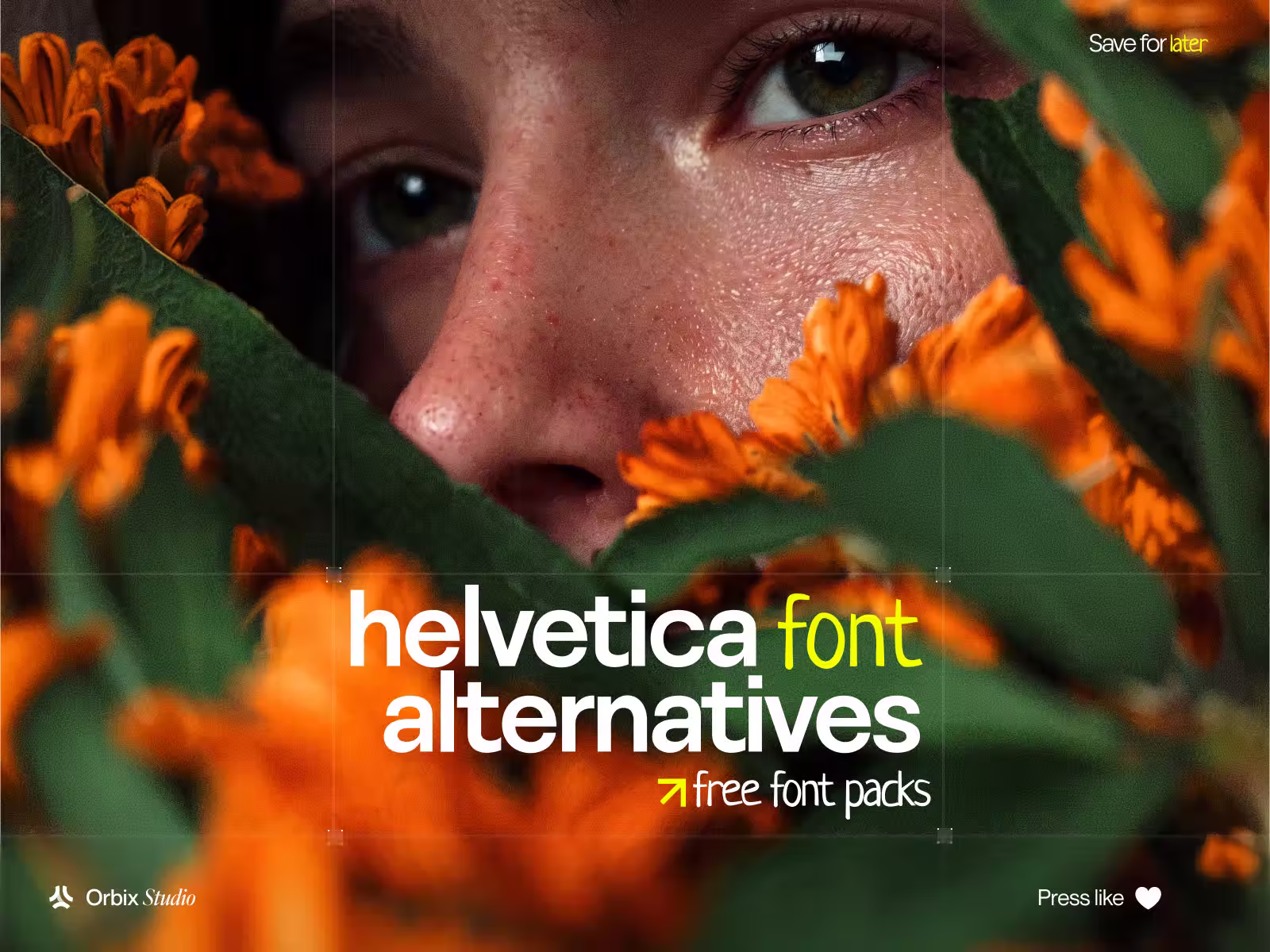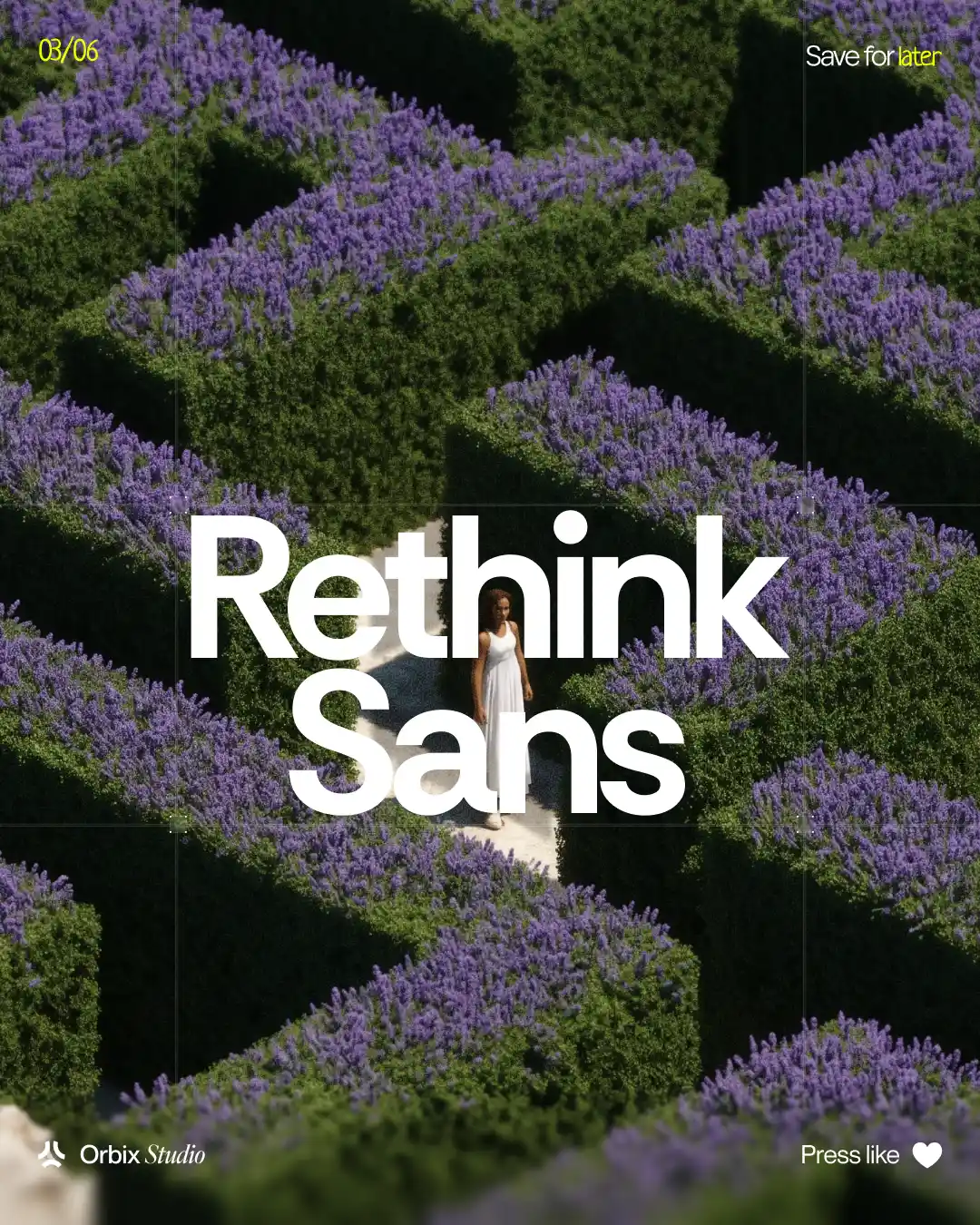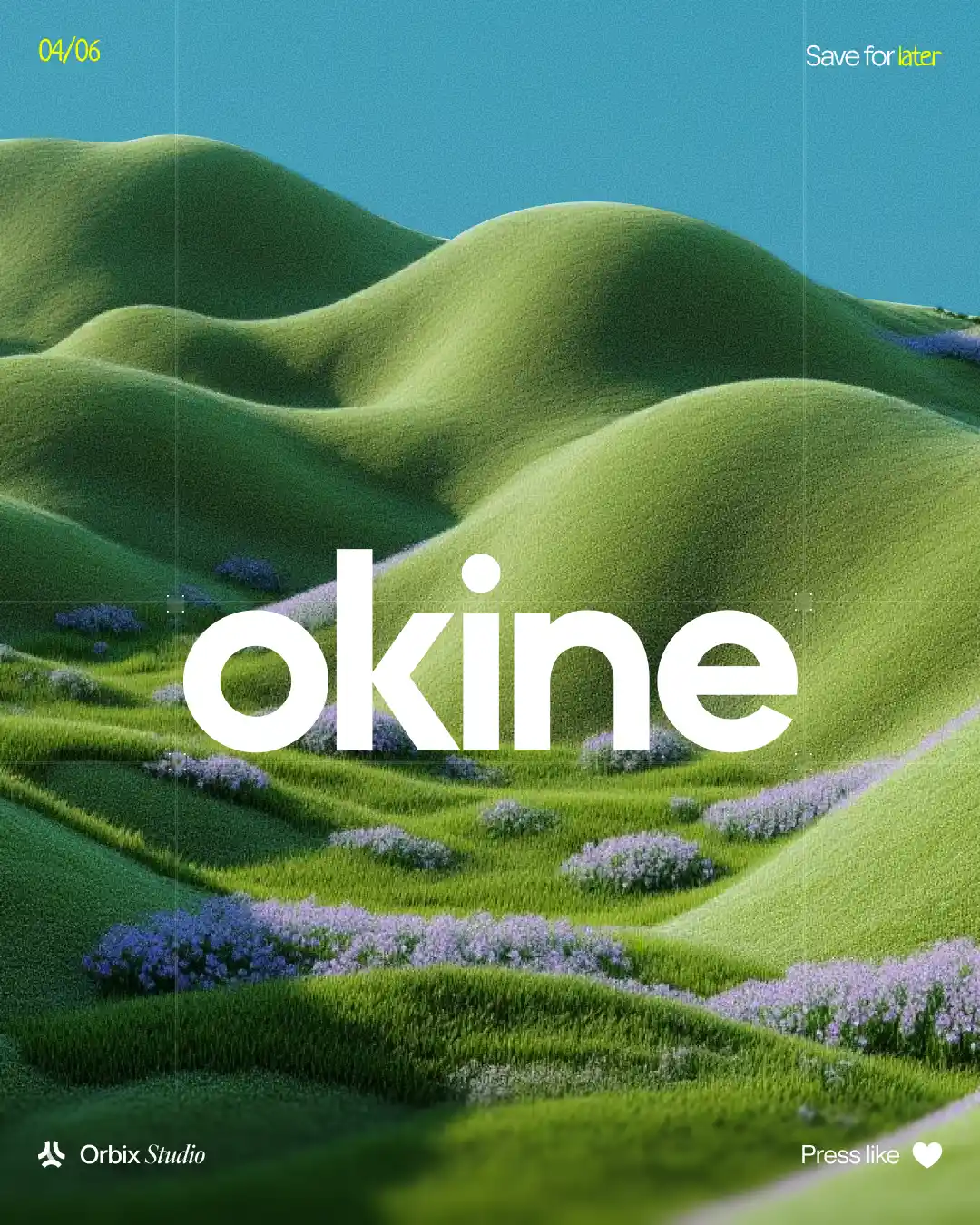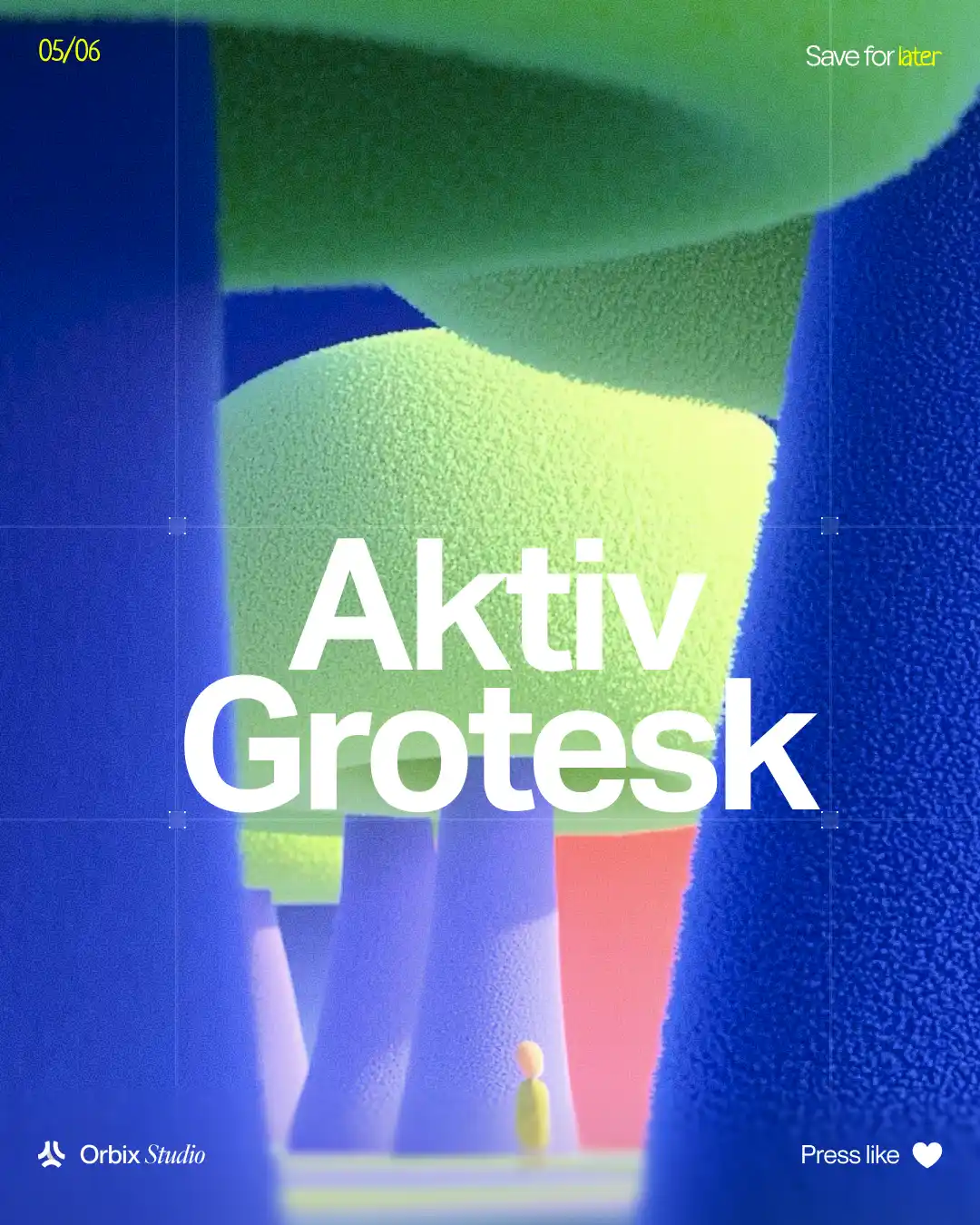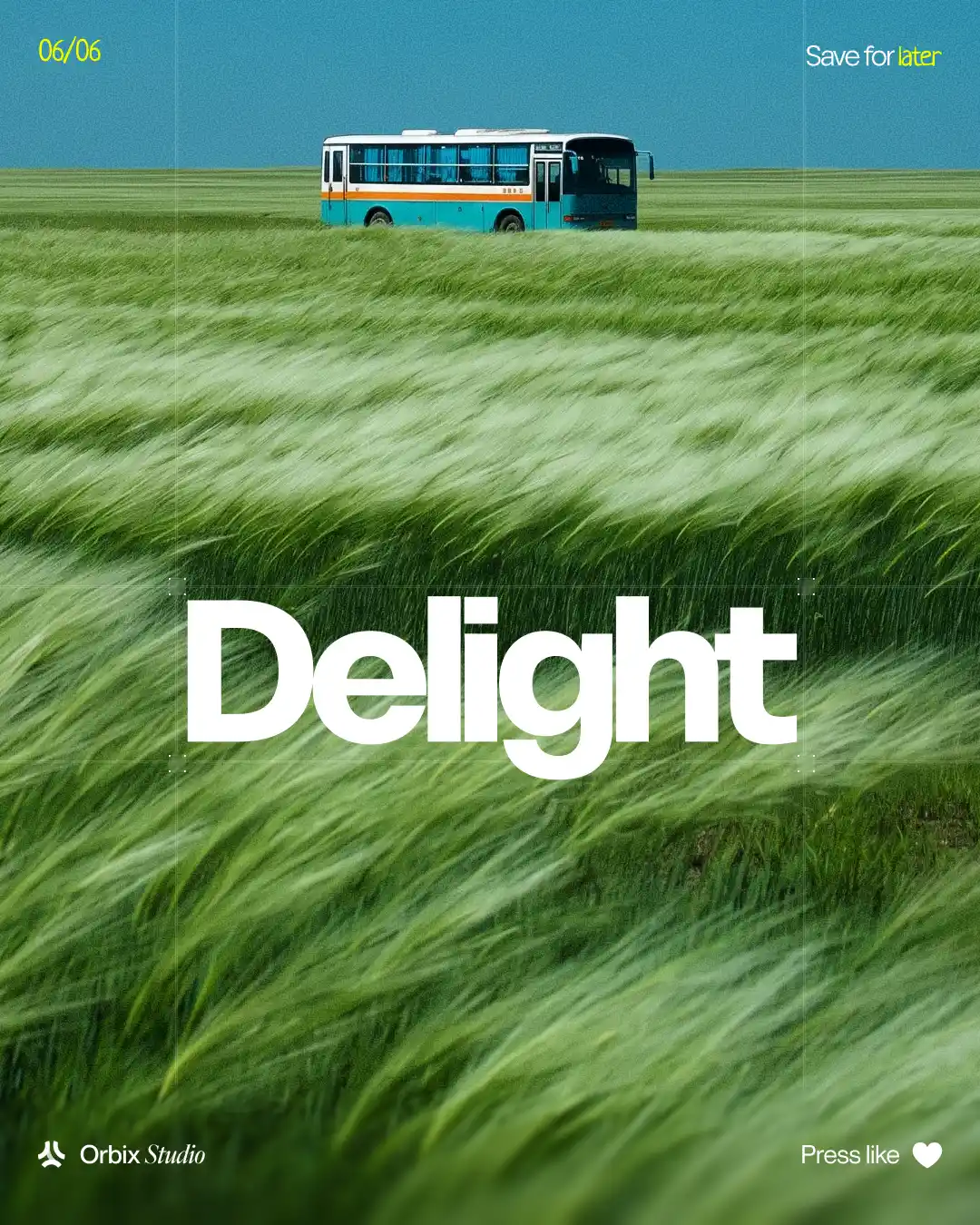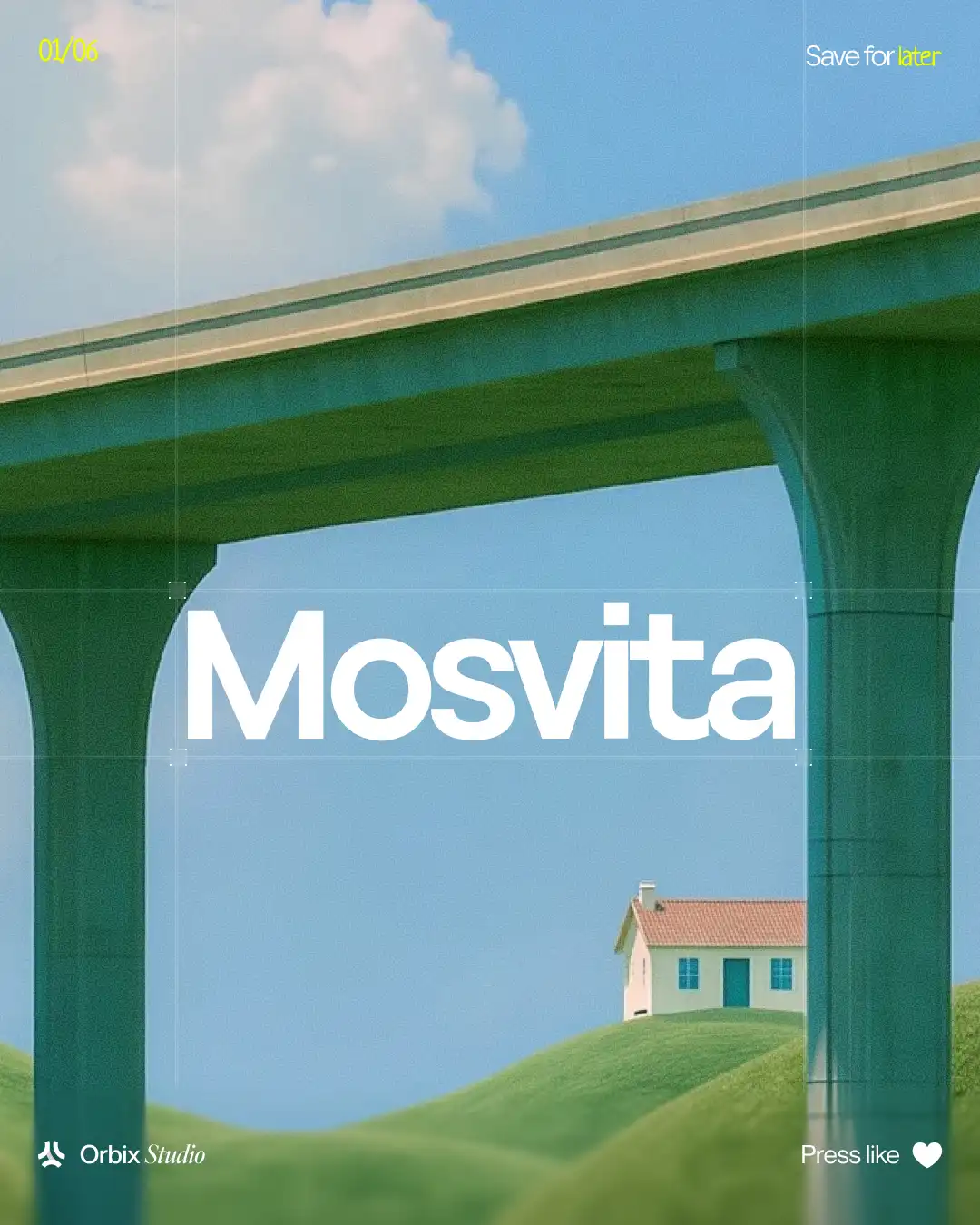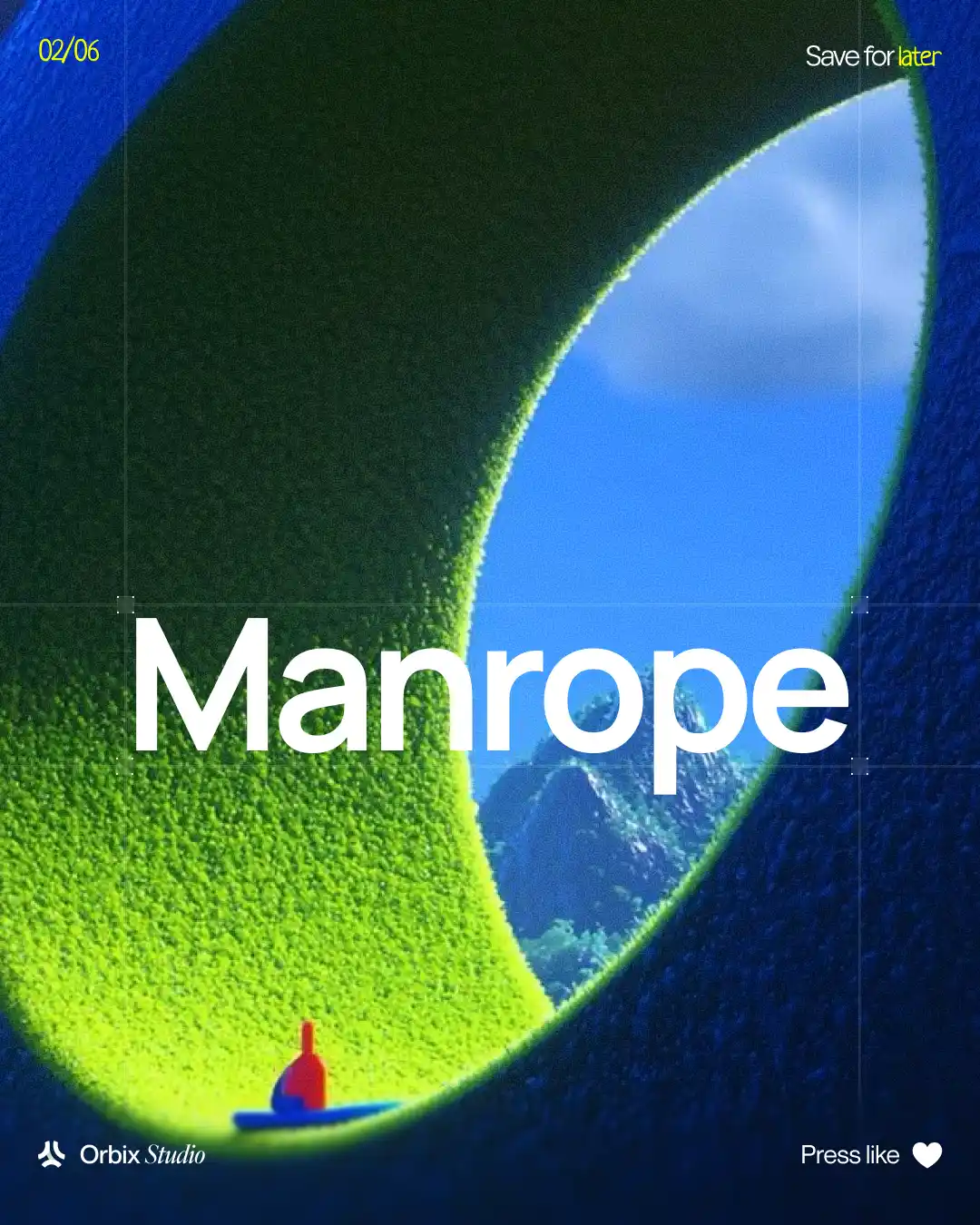
Free Helvetica Font Alternatives
Free Helvetica Font Alternatives is a free font resource from Orbix Studio for designers who want the clean, neutral look of Helvetica without paying for a licensed version. It's a grotesque-style typeface built to deliver the same timeless, versatile feel that makes Helvetica a go-to choice for branding, editorial, and UI design.
Because Helvetica itself typically requires a paid license for commercial use, this free alternative gives designers, startups, and small teams a similar neutral sans-serif look they can drop into logos, websites, and product interfaces without the licensing overhead - while keeping the balanced proportions and clean stroke weights that make Helvetica-style type easy to read at any size.
This resource is best suited to designers, startups, and brand teams who like the classic Helvetica aesthetic but need a free option for early-stage branding, prototypes, or budget-conscious projects.
Key Features:
- Clean, neutral grotesque letterforms
- Visually similar to Helvetica's balanced proportions
- Suited to branding, editorial, and UI design
Perfect For:
- Startups and small brand teams
- Designers wanting a Helvetica-style look for free
- UI and product design
- Budget-conscious branding and prototypes